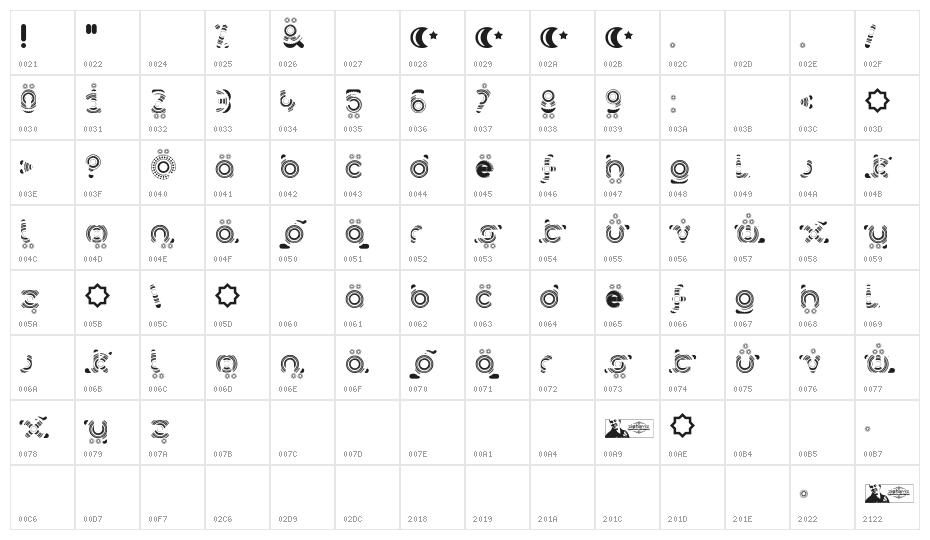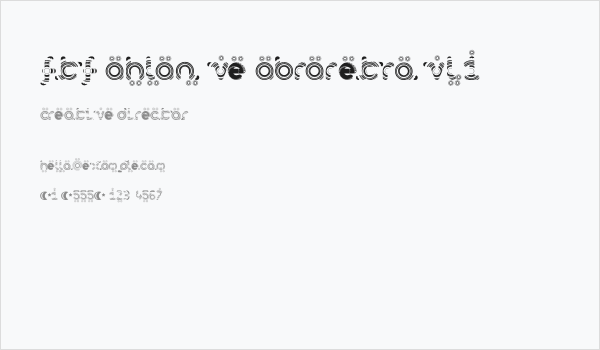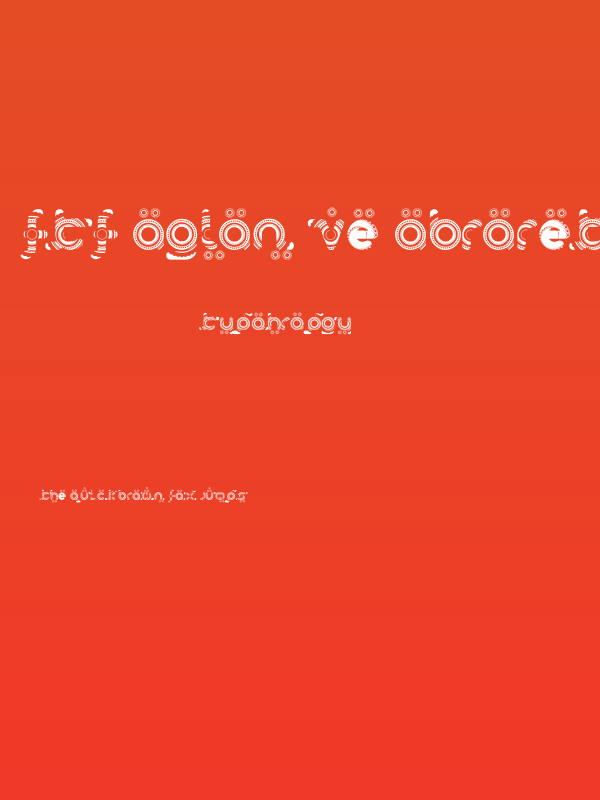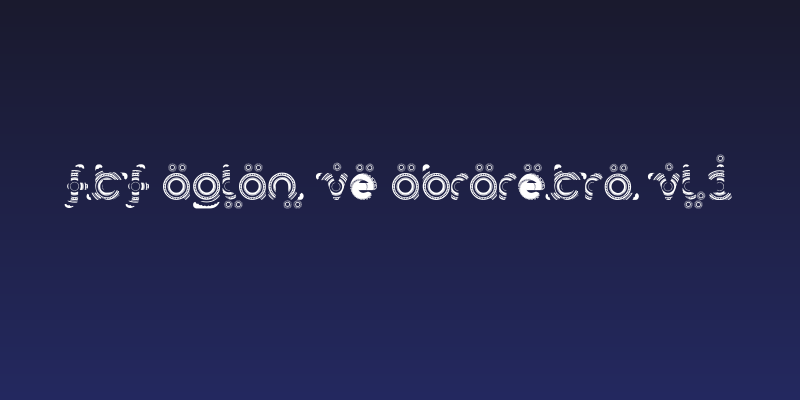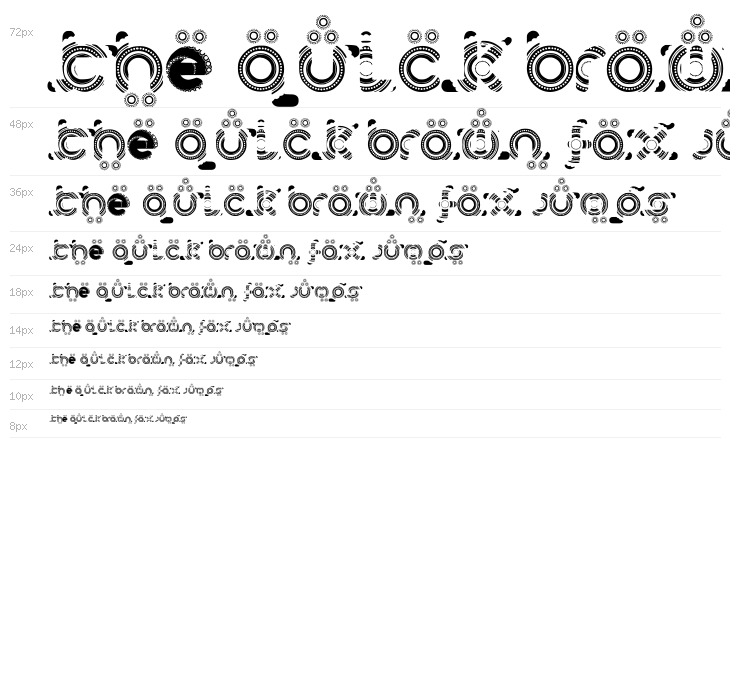
FTF Ahlan Ve AbraRetro vl.1 Font
FTF Ahlan Ve AbraRetro vl.1 Description
This font features a highly decorative and intricate design, characterized by its use of circular and geometric patterns within each character. The letters are composed of concentric circles, dots, and lines, creating a visually complex and ornate appearance. The style is reminiscent of retro and vintage aesthetics, with a playful and artistic flair. Each character is unique, with varying levels of detail and embellishment, making it suitable for creative and eye-catching designs. The font's distinctiveness lies in its ability to transform simple text into a work of art, with each letter offering a new visual experience.
| Overall Style | Vintage, Decorative |
| Proposed Projects | This font is perfect for projects that require a bold and artistic touch, such as posters, album covers, branding for creative industries, and decorative headings. |